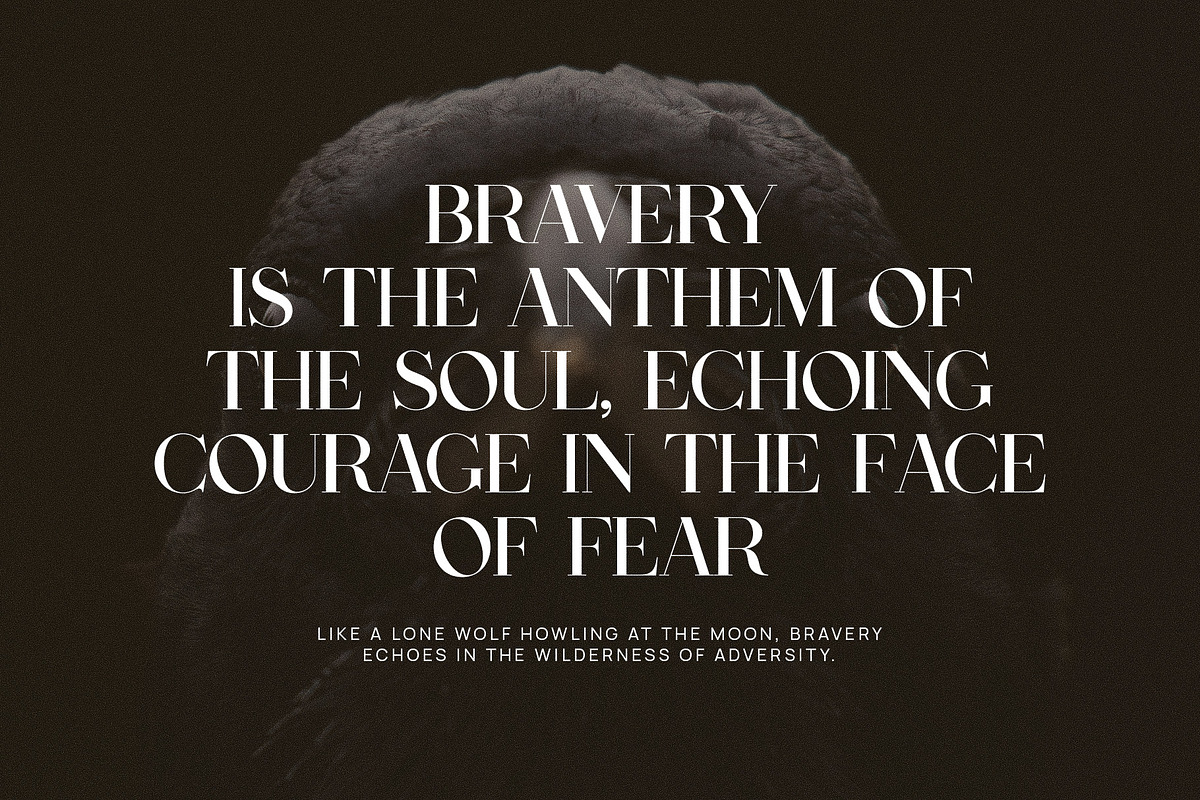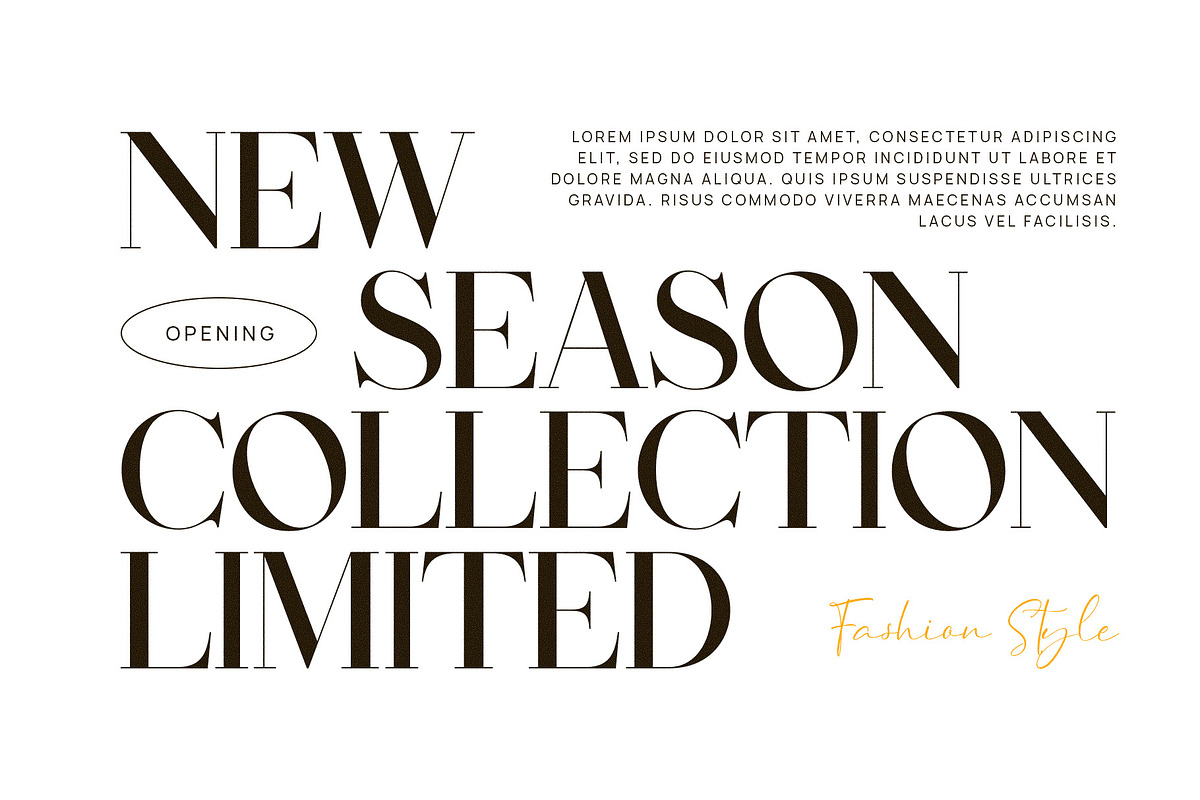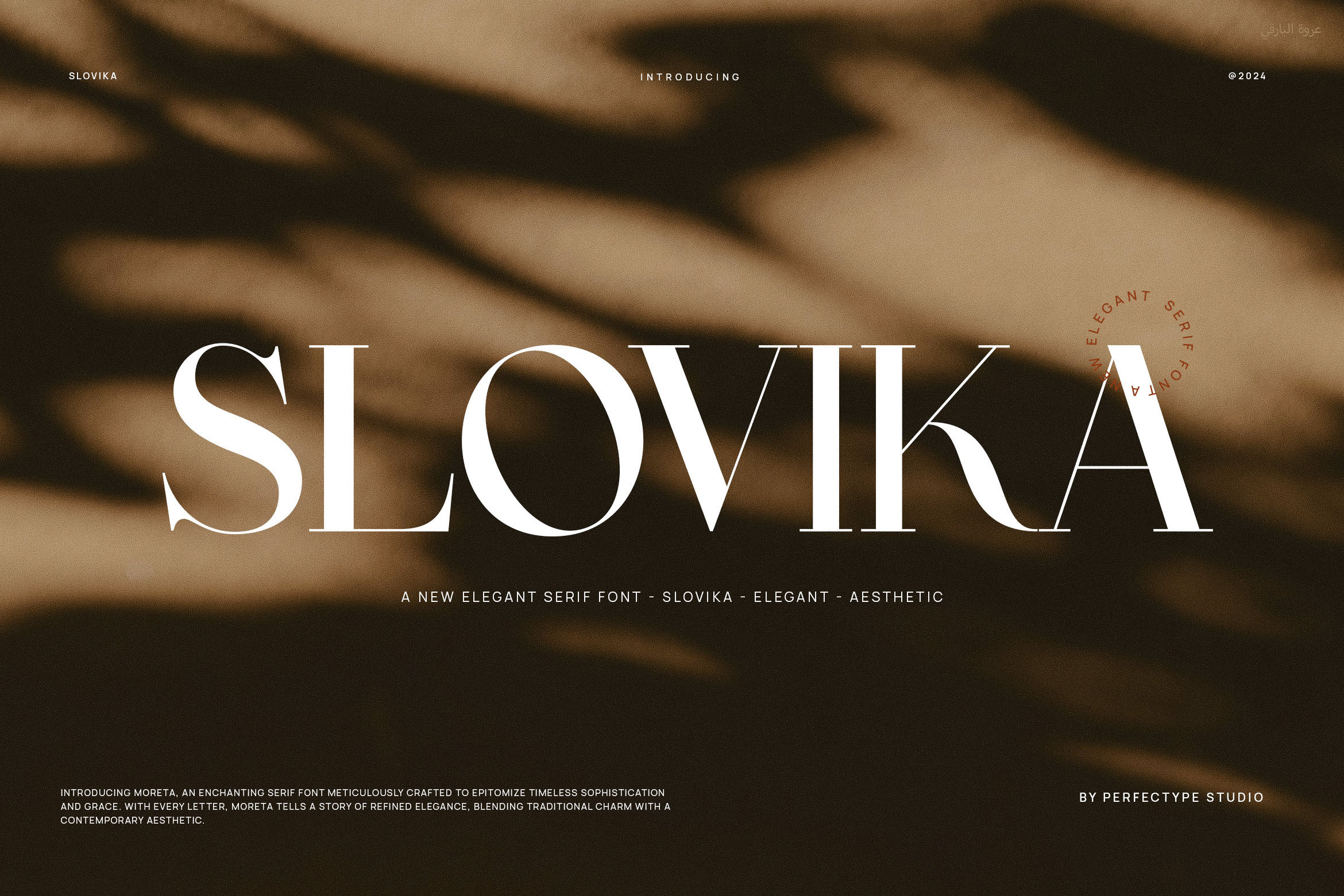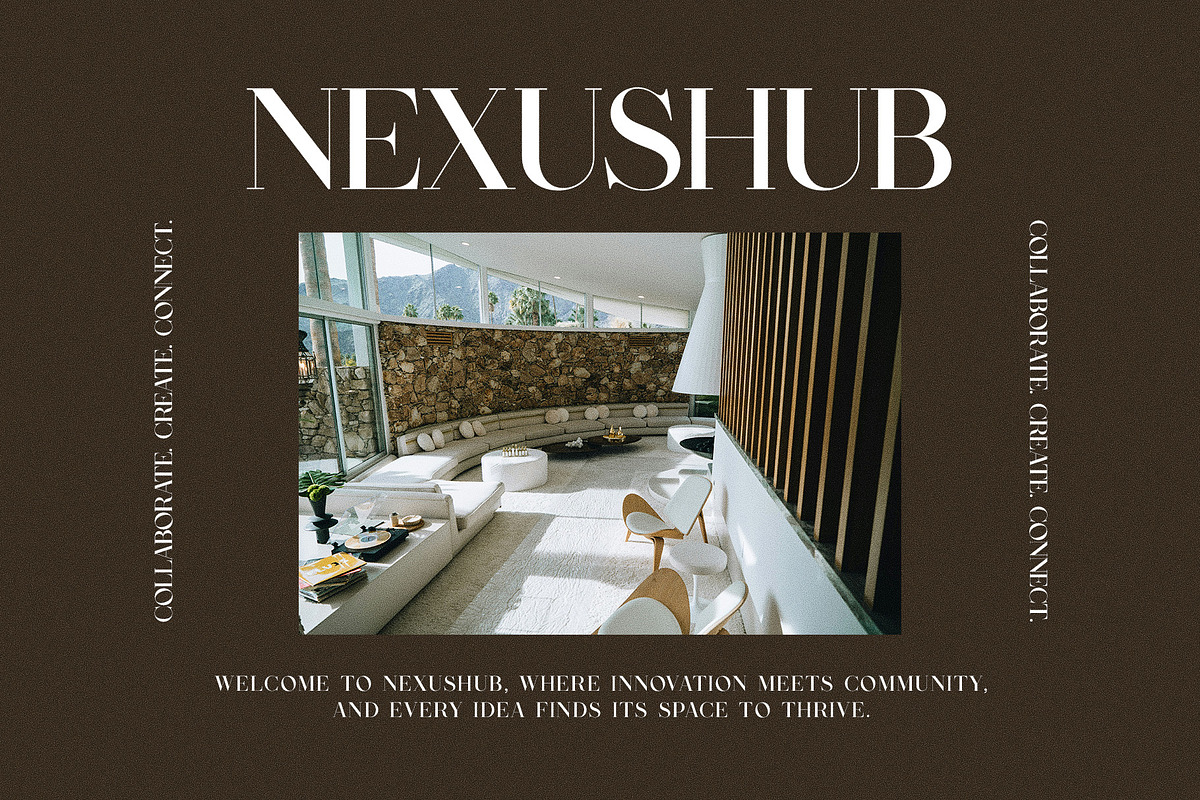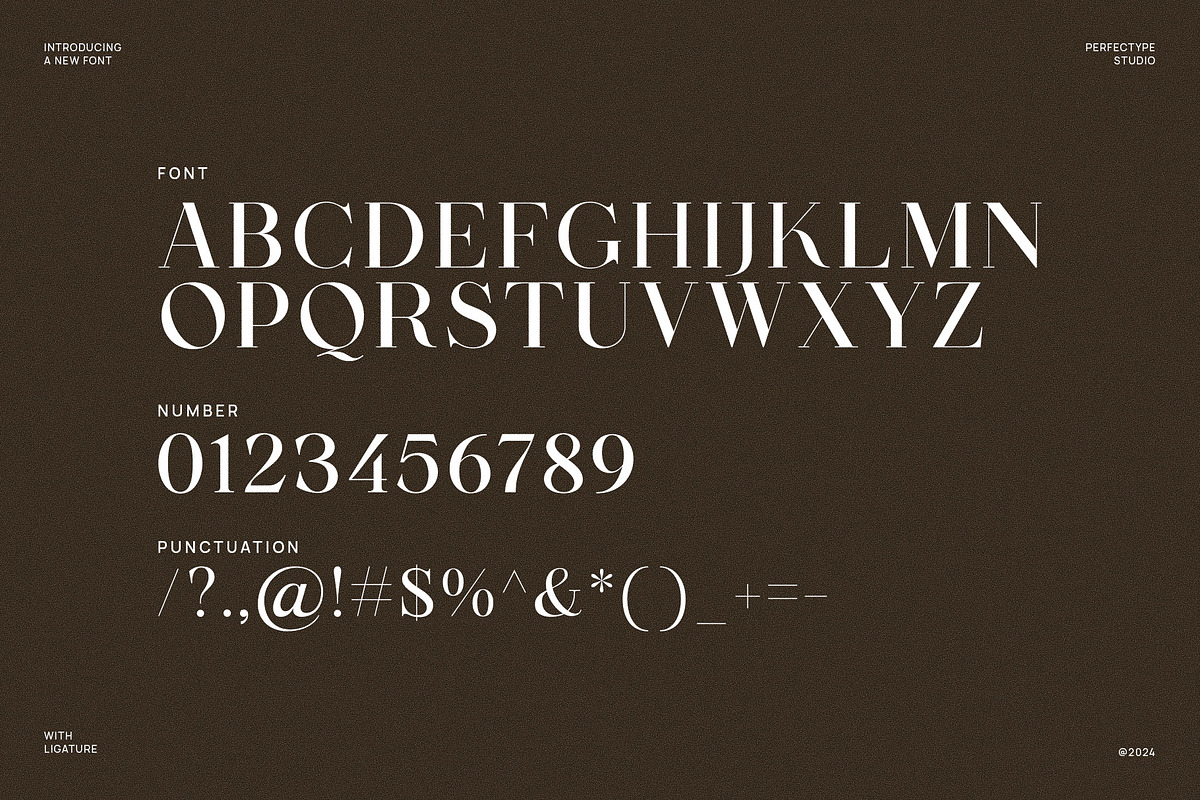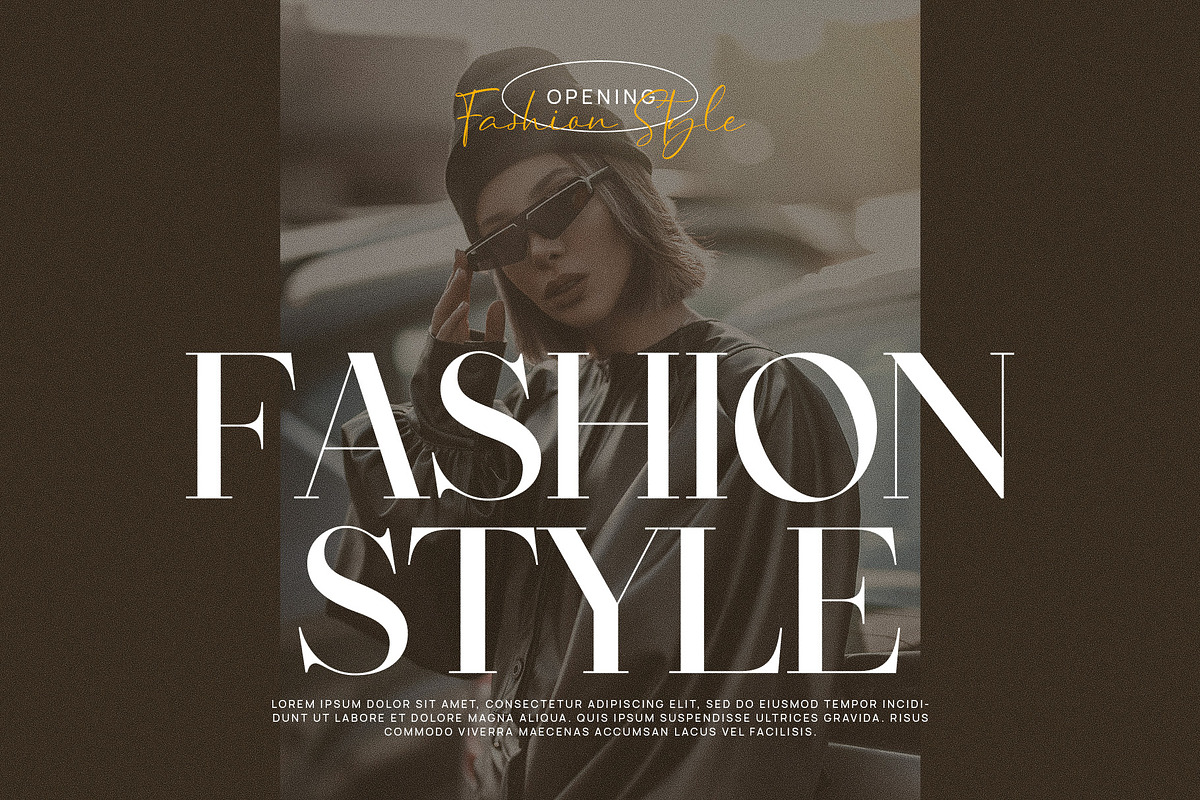
Slovika Elegant Serif Font
This is a very elegant and classy font for all branding and logo designs This type of serif font is made with elegance and luxury so it is very suitable for all your design uses. This type of font is very suitable for your various needs such as branding projects, logos, social media posts, advertisements, labels, product packaging, photography, wedding designs, watermarks, invitation product designs, stationery, and any project, created at a high level legibility.